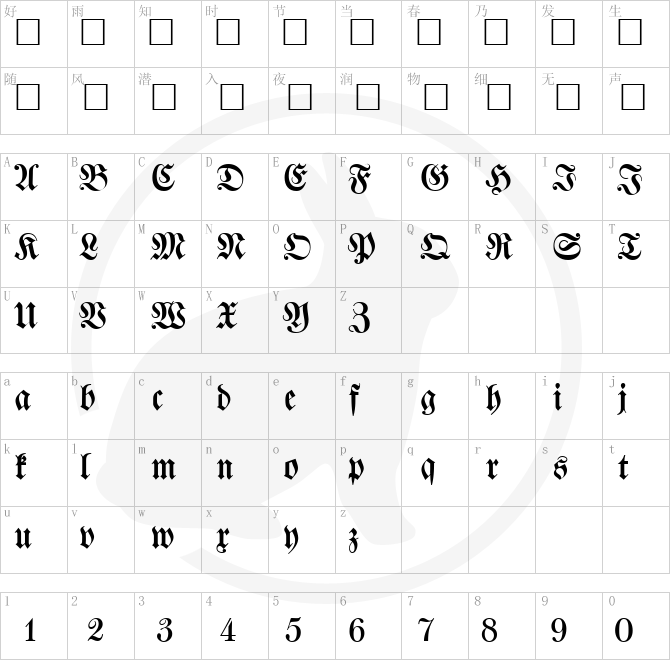
- Font Name:WalbaumFraktur
WalbaumFraktur-Regular.ttf is a very beautiful artistic font, WalbaumFraktur-Regular.ttf is widely used in the design and printing of various books and pictures,WalbaumFraktur-Regular.ttf has a strong visual impact,WalbaumFraktur-Regular.ttf is a commonly used font in newspapers, magazines and books, and is used in posters, e-commerce Poster design, store design, logo design, font design and other fields.WalbaumFraktur-Regular.